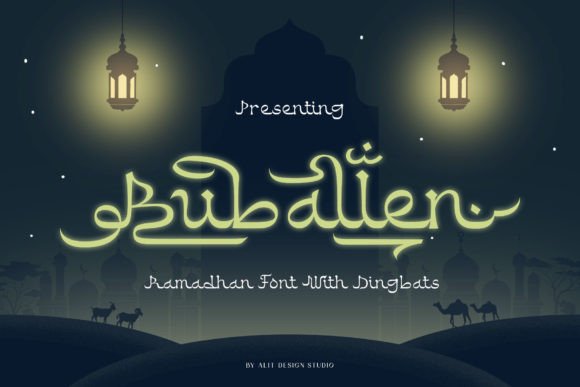
The Elegance of Buballen Font: Elevating Your Designs with a Touch of Islamic Sophistication
I’ll never forget the time I was working on a Ramadan promotion project for a client, and I was struggling to find the perfect font that would capture the essence of the holy month. The design needed to be elegant, sophisticated, and respectful, but my usual go-to fonts just weren’t cutting it. That’s when I stumbled upon Buballen Font, and it was love at first sight! ✨ In this article, I’ll share my experience with Buballen Font, its features, and how to make the most of it in your designs.
An Honest Review of Buballen Font
- ✨ Elegant and sophisticated design that adds a touch of Islamic elegance to any project
- ✅ PUA encoded, making it easy to access all glyphs and swashes
- ✅ Perfect for Ramadan promotions, Islamic design projects, and any design that requires a touch of sophistication
- ✨ Carefully crafted design that is sure to impress your audience
While Buballen Font is an excellent choice for Islamic design projects, there are a few things to keep in mind: ⚠️
- 🤔 As a PUA encoded font, you may need to use specific software or plugins to access all glyphs and swashes
- ⚠️ Some users may find the font too ornate or elaborate for certain design projects
The Story Behind Buballen Font
Buballen Font was designed with the intention of creating a font that would add a touch of Islamic elegance to any design project. The font’s creator was inspired by traditional Islamic art and calligraphy, and sought to create a font that would be both beautiful and functional. The result is a font that is both elegant and sophisticated, making it perfect for Ramadan promotions, Islamic design projects, and any design that requires a touch of sophistication.
| Font Name | Buballen Font |
| Author | Alit Design |
Q: What is PUA encoding, and how does it affect Buballen Font?
A: PUA (Private Use Area) encoding is a way of encoding fonts that allows for the inclusion of additional glyphs and characters. In the case of Buballen Font, PUA encoding enables the font to include a range of glyphs and swashes that can be easily accessed and used in designs.
Q: Is Buballen Font suitable for digital designs?
A: Yes, Buballen Font is suitable for digital designs. The font is designed to be clear and legible, making it perfect for use in digital designs such as social media graphics, websites, and more.